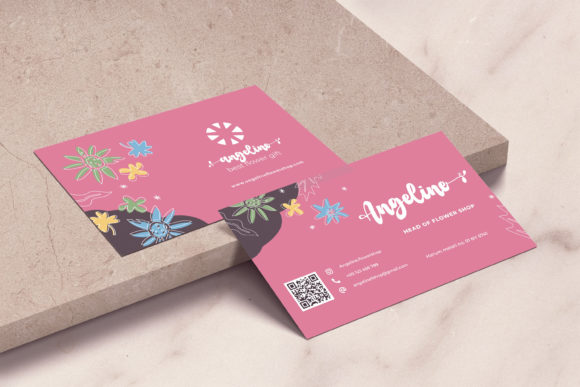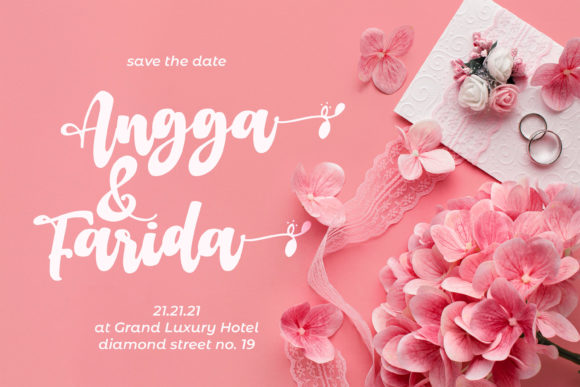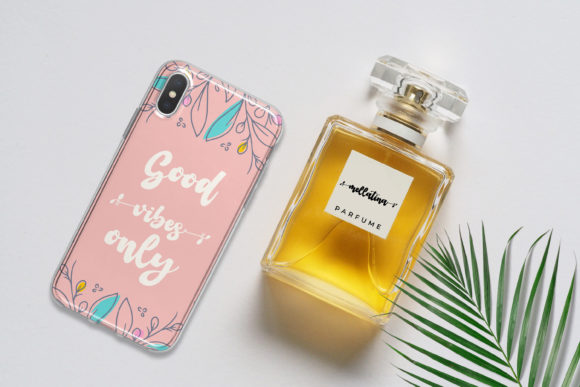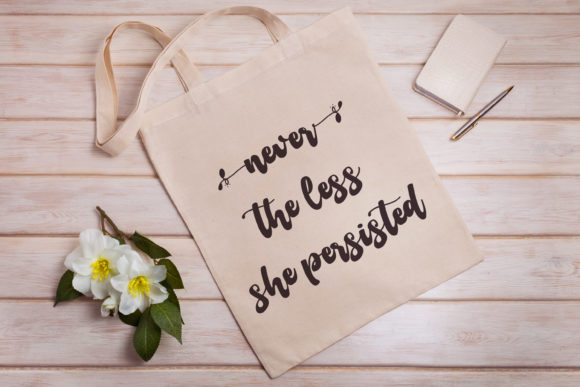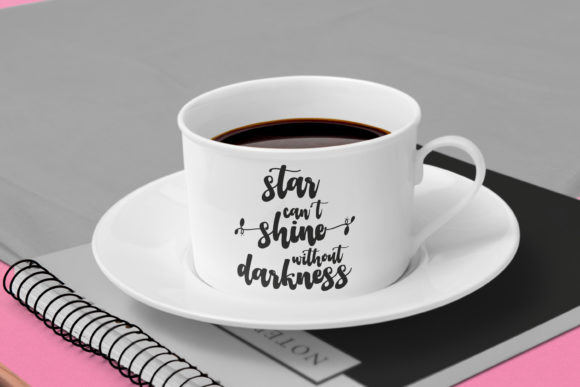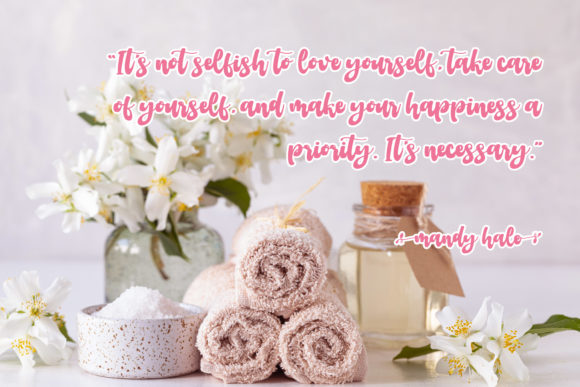
Introduction to Mellatina Font
Mellatina is a whimsical script font with a relaxed theme, featuring a lovely style.
No matter the topic, this font will be an incredible asset to your fontsโ library, as it has the potential to elevate any creation This font is PUA encoded which means you can access all of the glyphs and swashes with ease.
Mellatina Font offers exceptional quality and versatility, making it a valuable addition to your design toolkit. Whether you’re creating for personal projects or commercial use, Mellatina Font delivers professional results.